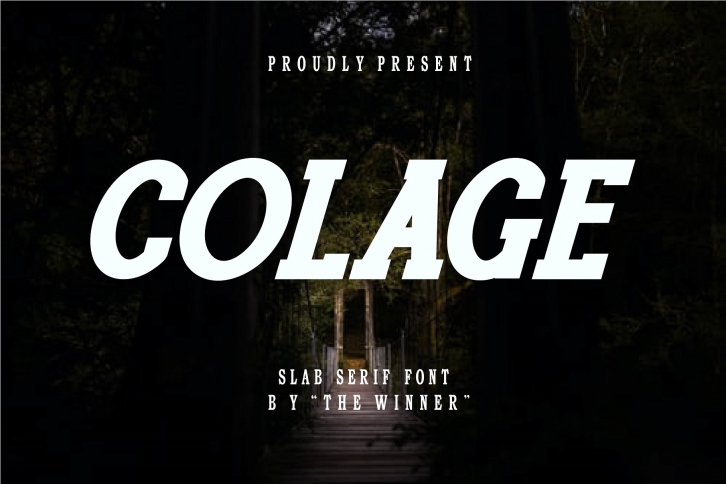
Introducing this new oblique serif font called Colage. It’s perfect for branding, product packaging, invitations, quotes, t-shirts, labels, posters, or any logo you want to develop. Make all your design projects more attractive and take your designs to the next level with Colage!